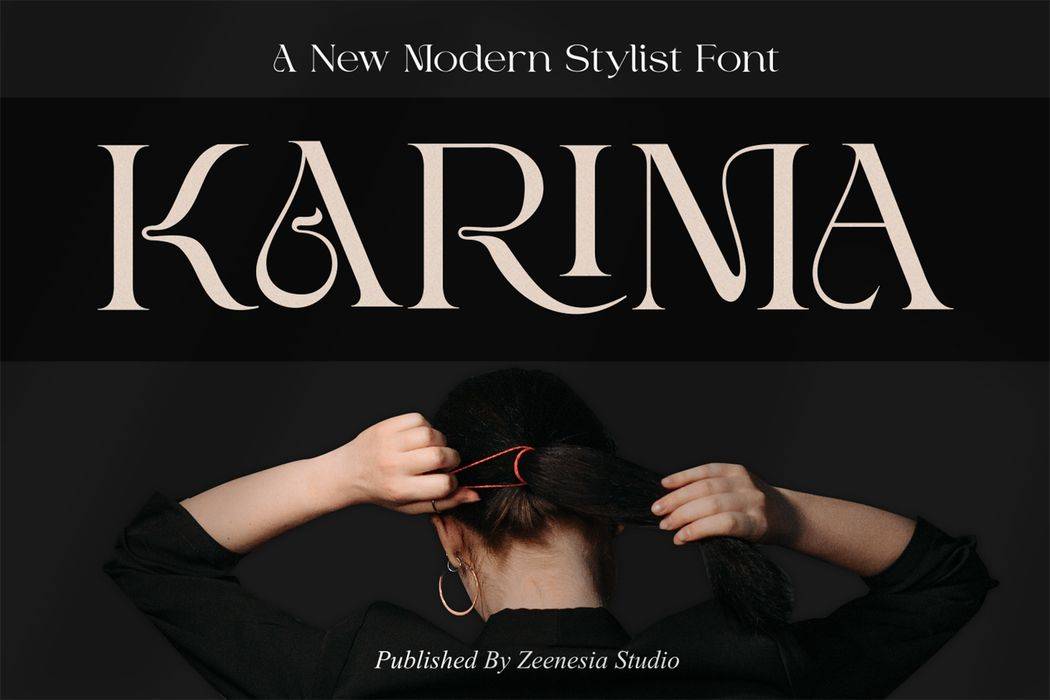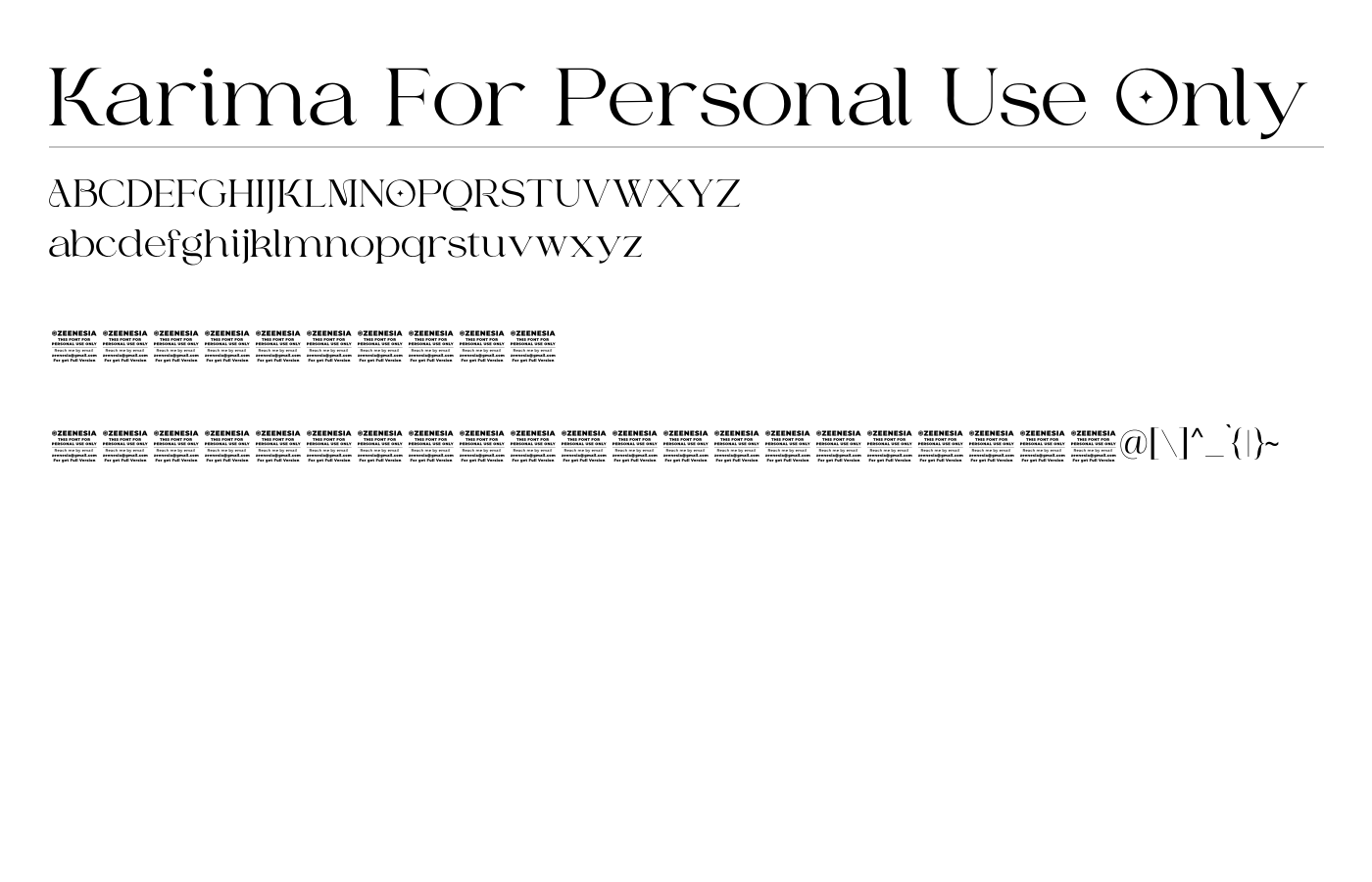
Karima is an elegant serif font characterized by its high contrast between thick and thin strokes, slender letterforms, and delicately bracketted serifs. Its refined and stylish appearance, with unique details like the star-shaped dots and distinctive letter shapes, gives it a sophisticated and artistic vibe ideal for luxury branding, editorial headlines, and fashion contexts. This font works best where a graceful, modern yet classic impression is desired, making text feel both formal and creative.
Karima Font
About Karima Font
| Font family | Karima Font |
| Designer | Lettersiro 2018 |